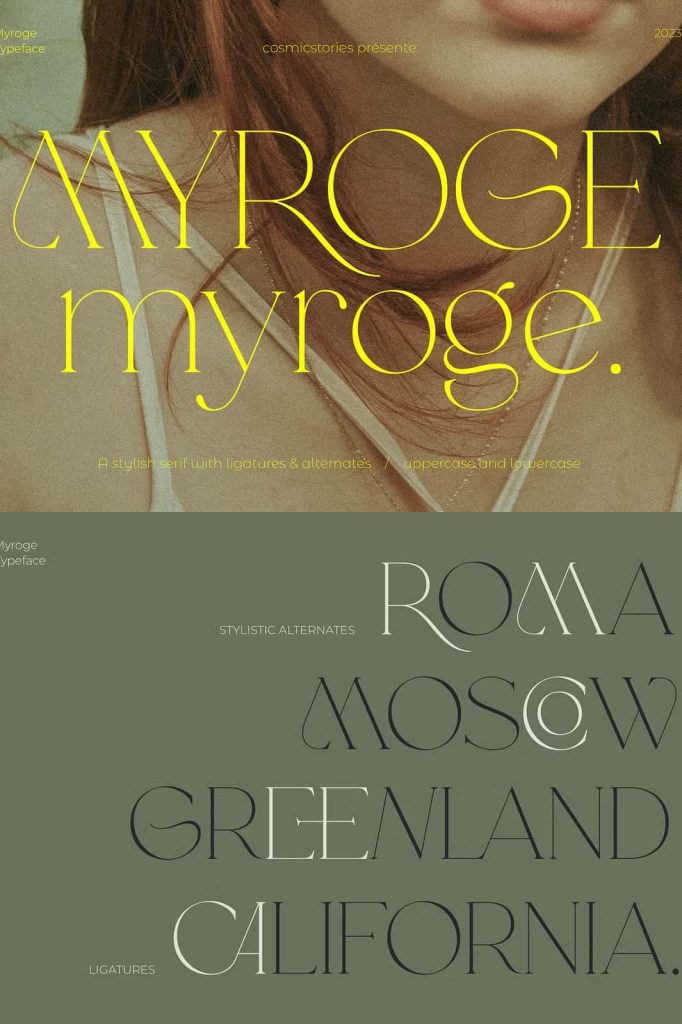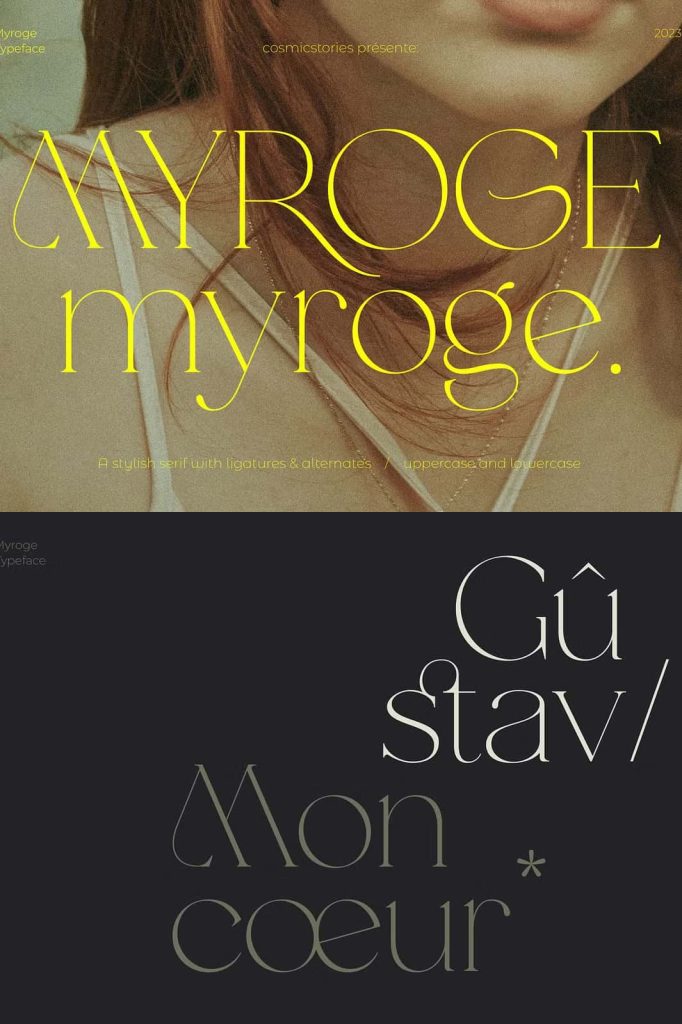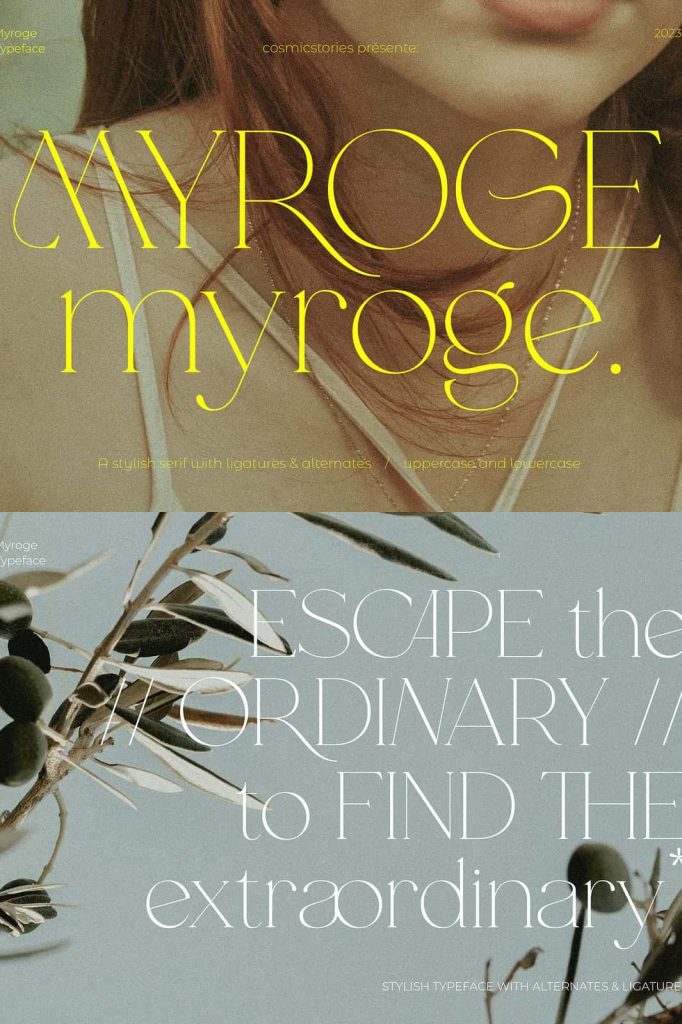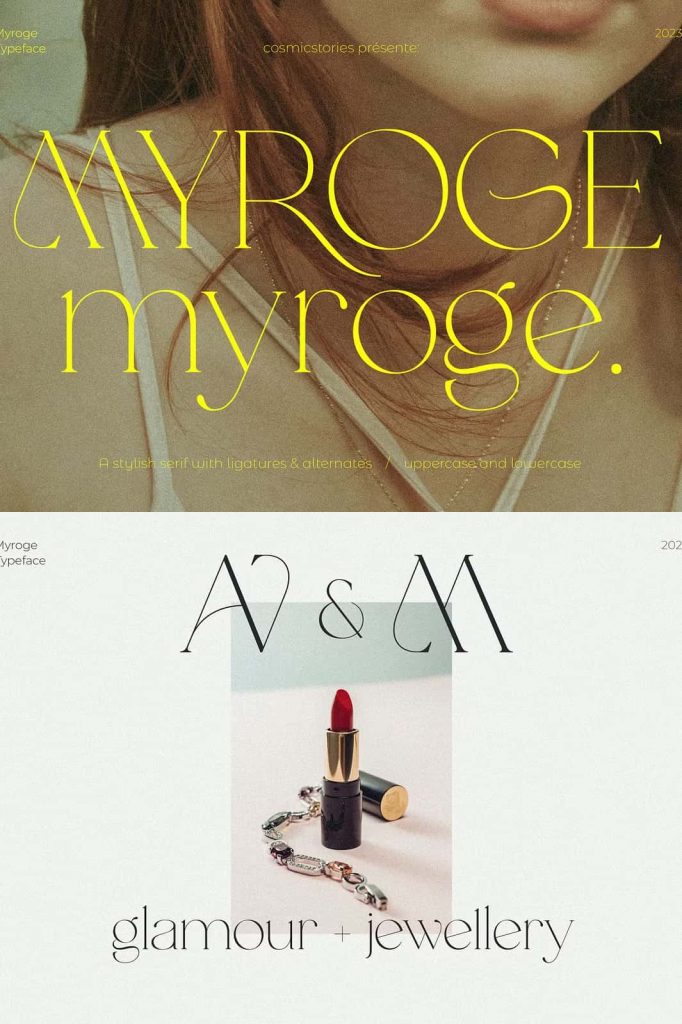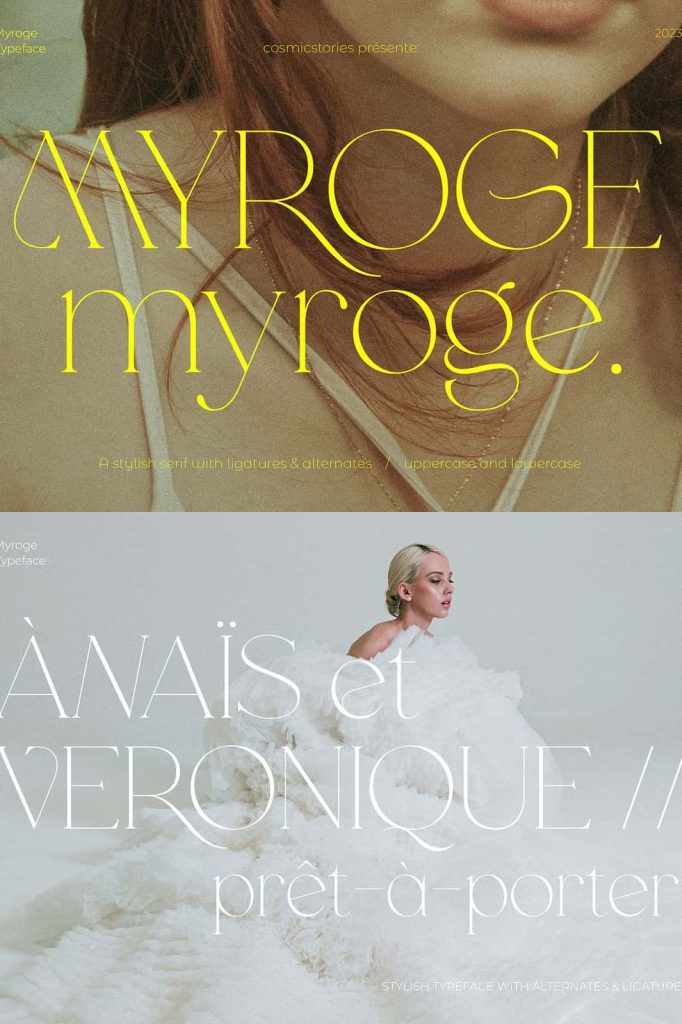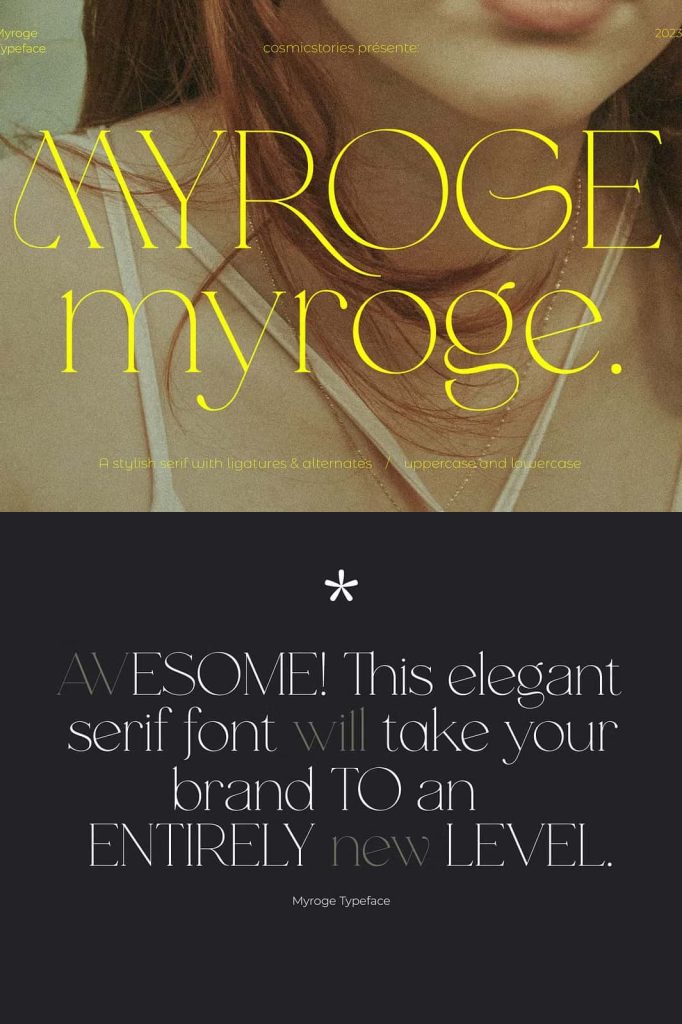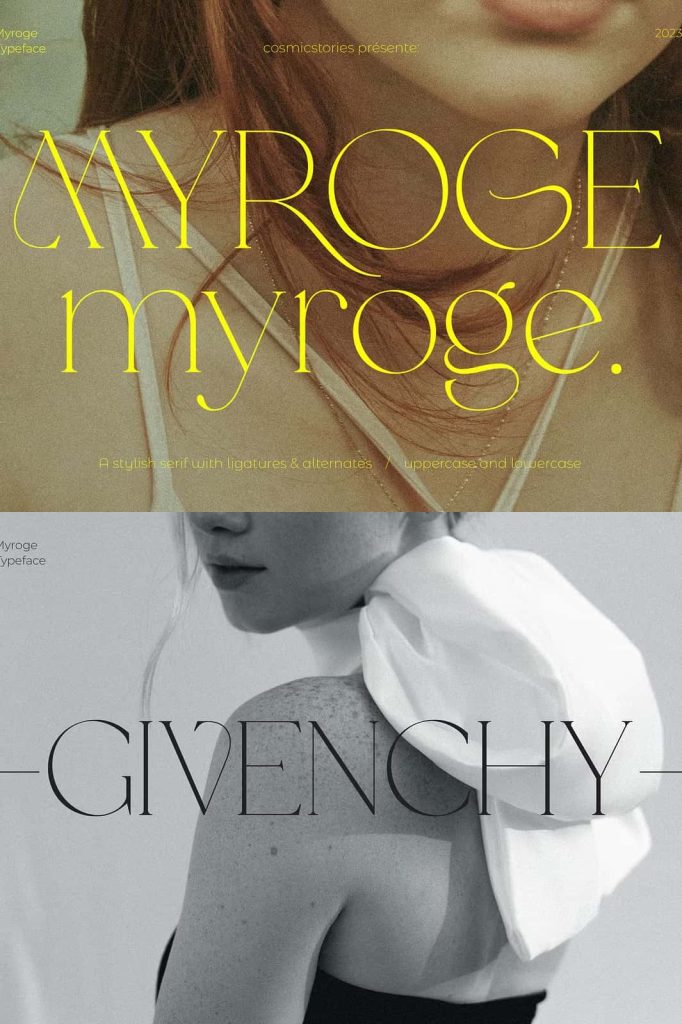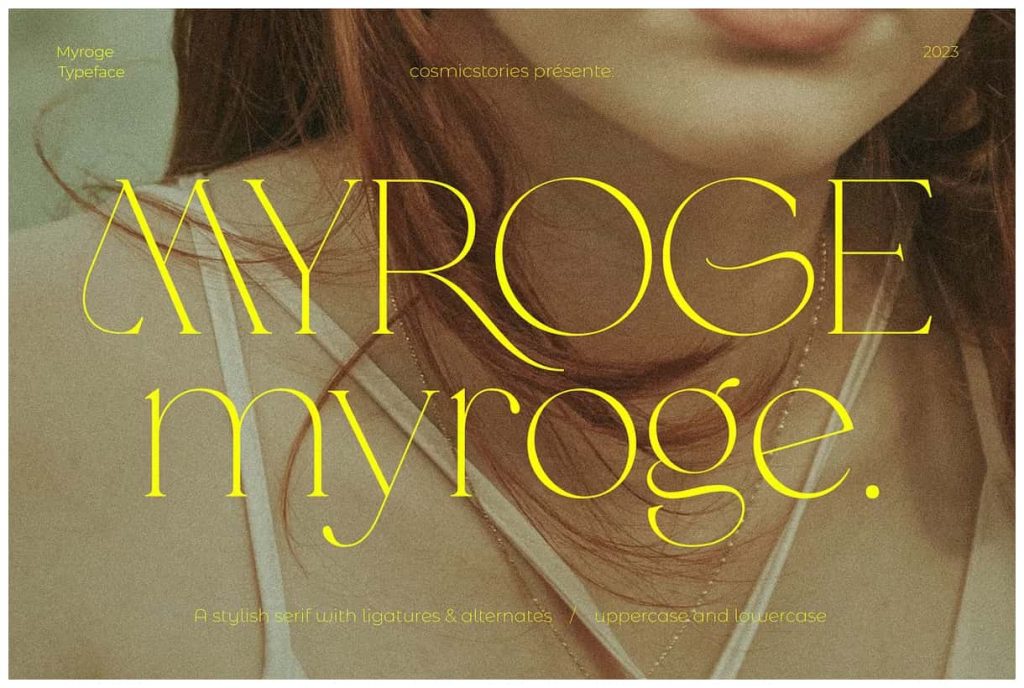
MYROGE elegant & stylish serif
CosmicStories introducing MYROGE, an extremely elegant and fragile serif font with beautiful ligatures and alternate glyphs.